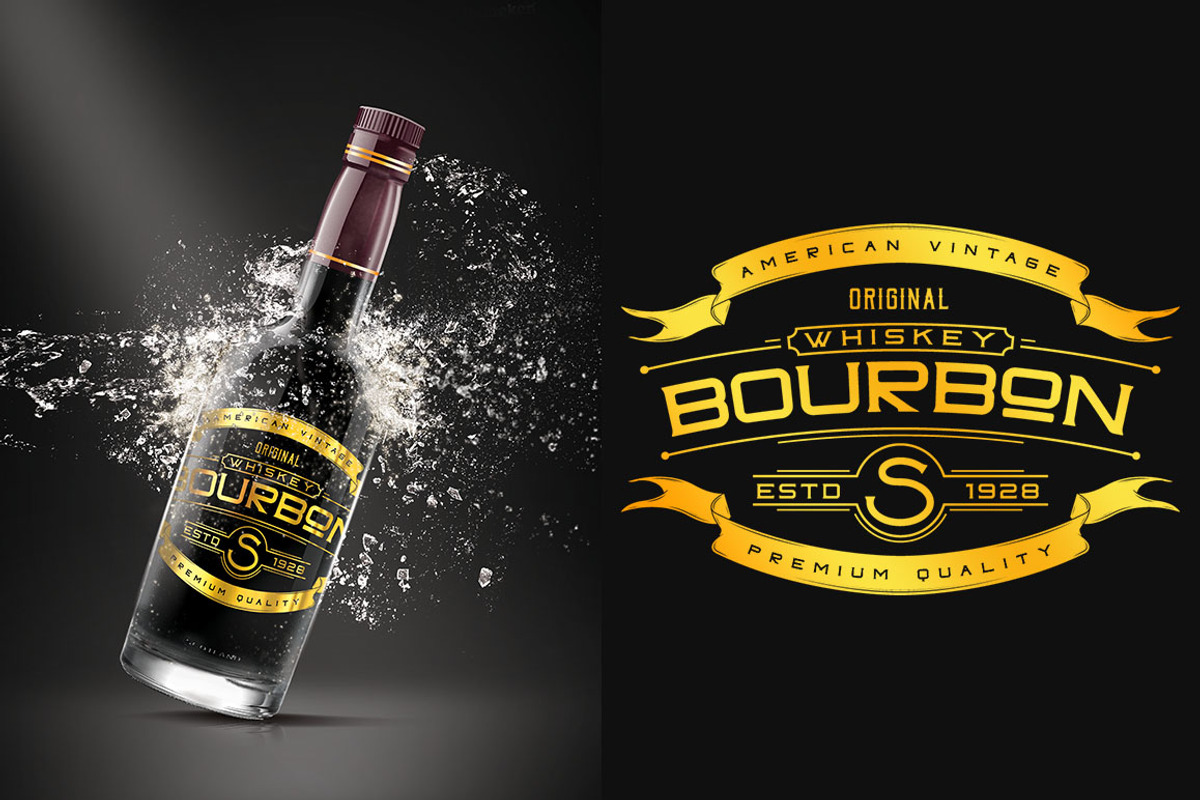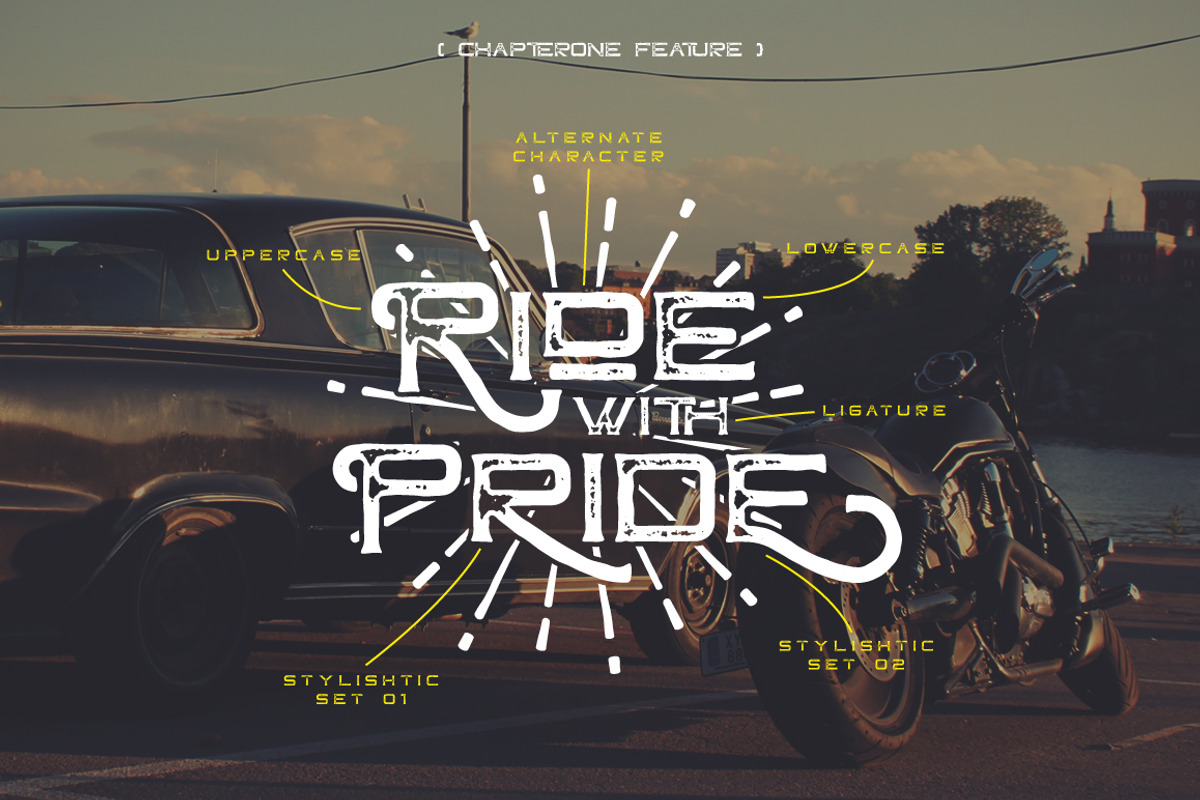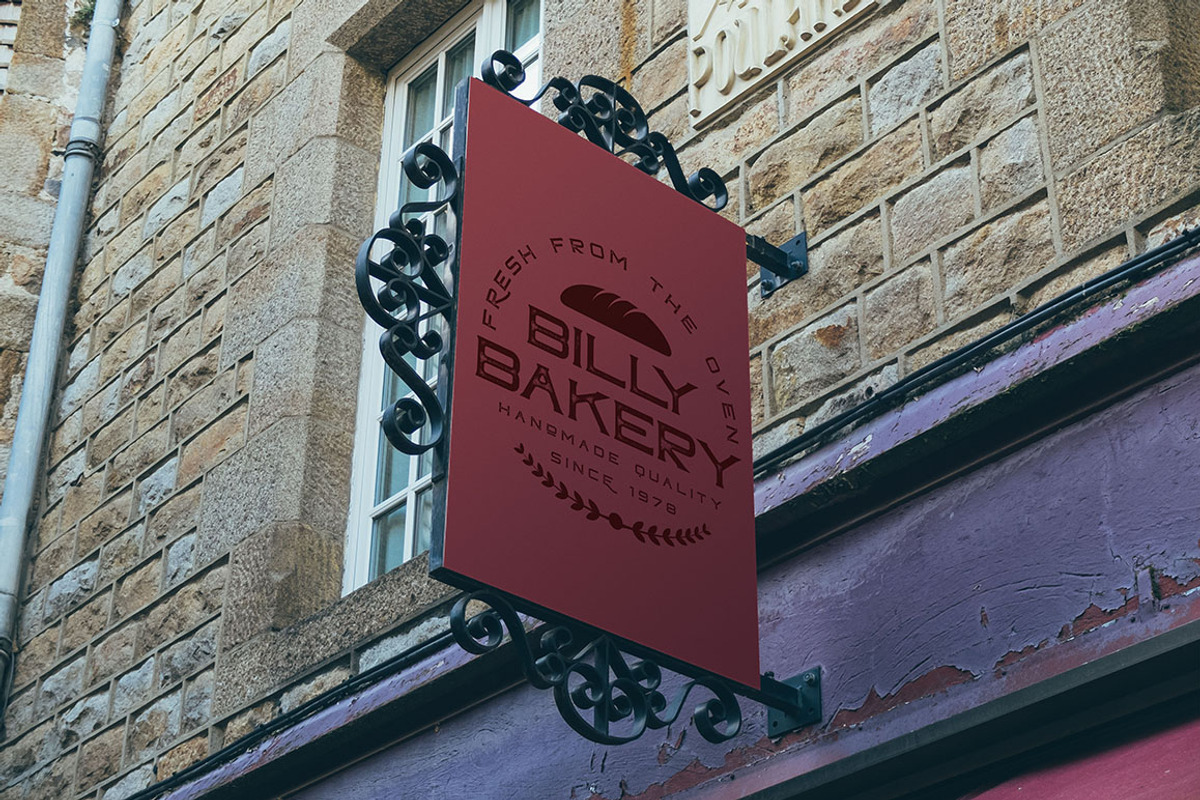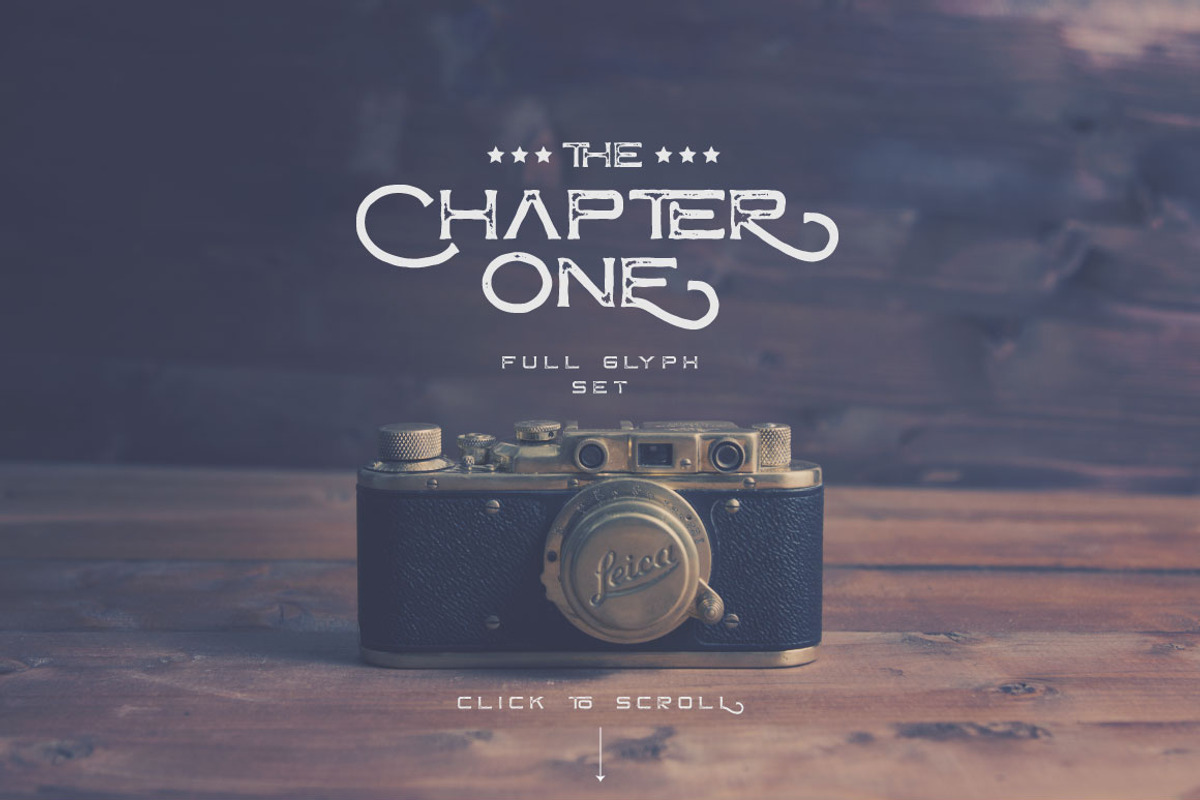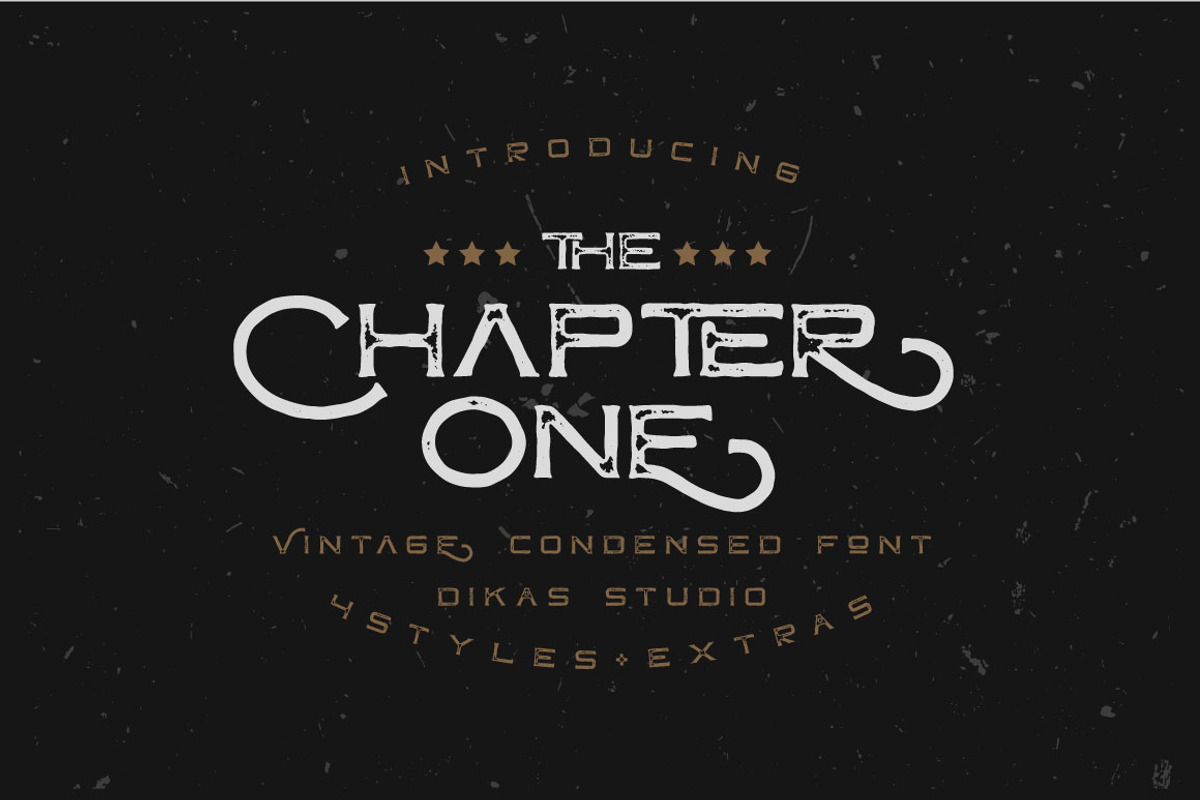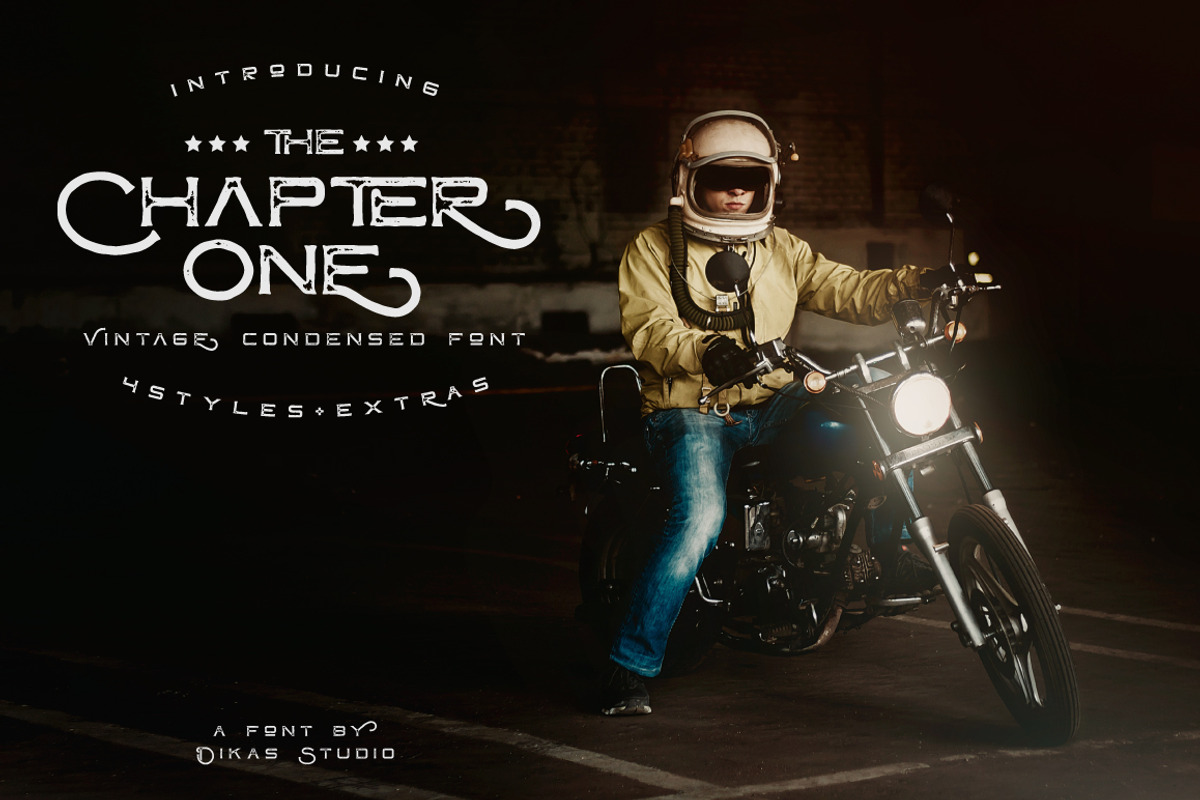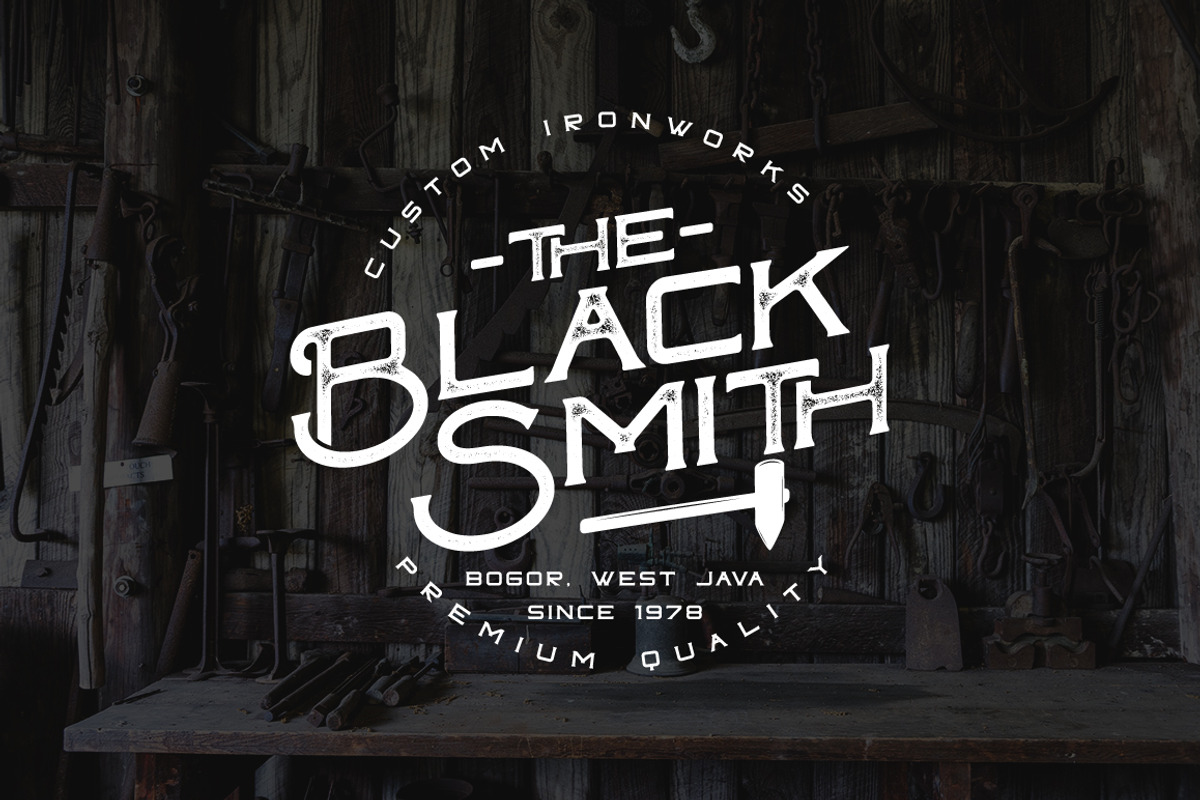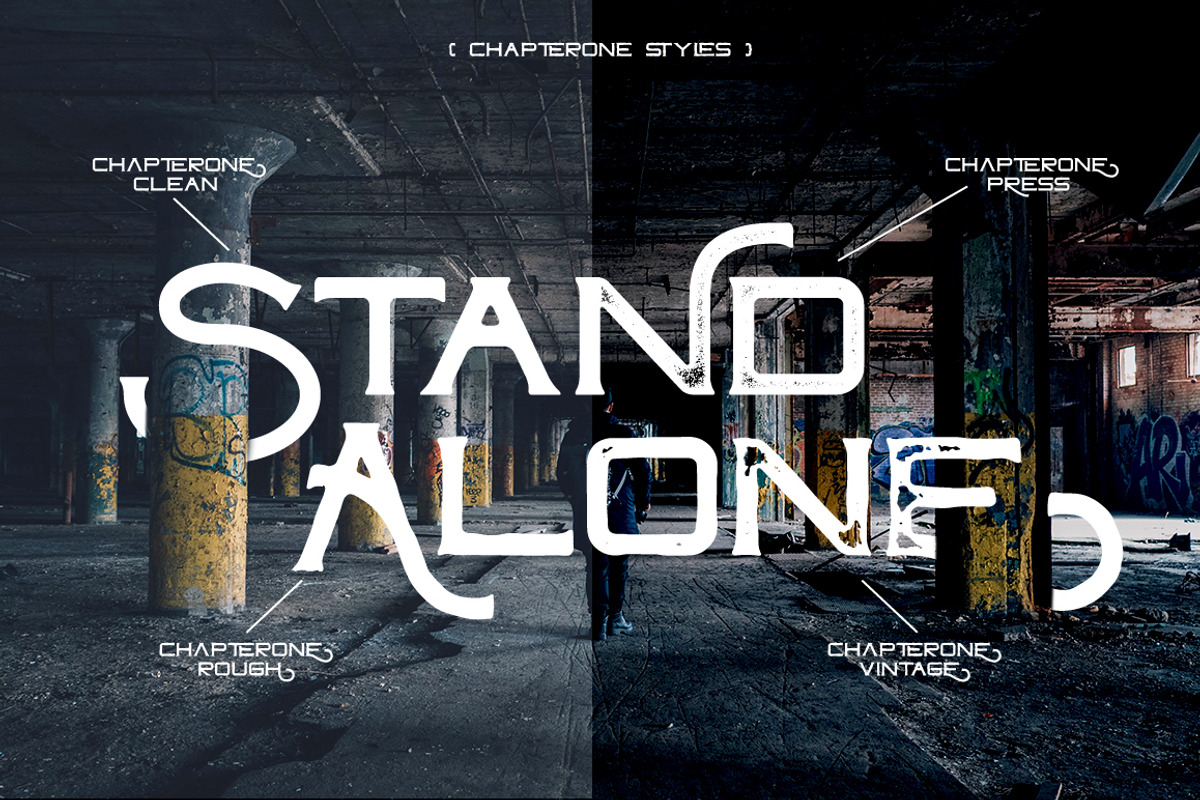
ChapterOne - 4 Font+Extras
ChapterOne - 4 Font+Extras by Dikas Studio is a font selected for branding, posters, packaging, typography.
- Feature Uppercase Lowercase Punctuation and Number Multilingual Language Alternate Character & Ligature SS01 & SS02 Whats Included ?
ChapterOne - 4 Font+Extras by Dikas Studio fits naturally into Branding, posters, packaging, typography.